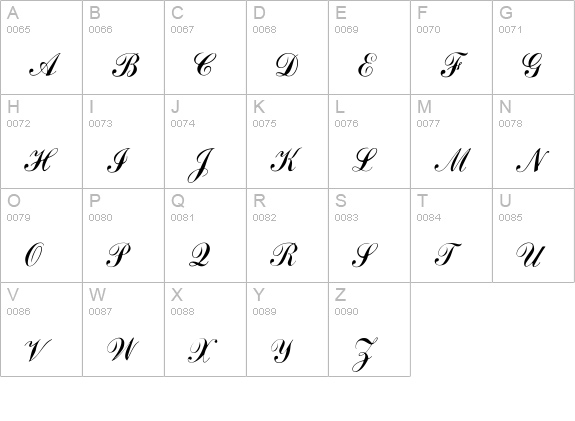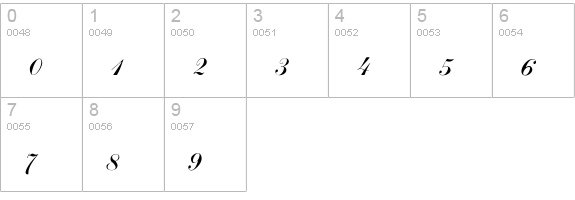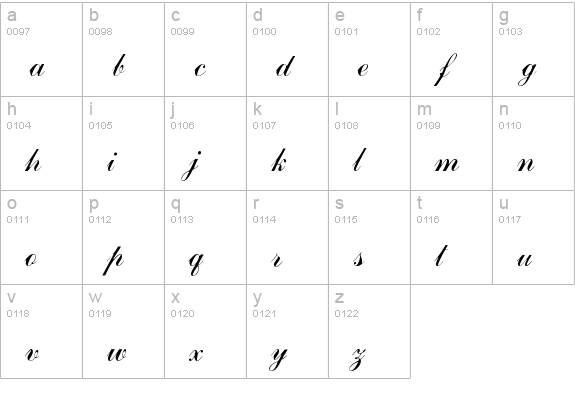
Excellence Font Details
Excellence font is a stunningly elegant typeface that exudes sophistication and style. With its clean lines and modern aesthetic, this font is perfect for creating professional designs that demand attention. The sleek and versatile design of Excellence font makes it suitable for a wide range of projects, from branding to editorial design and beyond. The best part about Excellence font is that it is completely free to download at FontsMarket.com. This means that you can add this beautiful font to your collection without any cost, making it a valuable resource for any designer looking to elevate their work. Whether you're designing a sleek logo, crafting a stylish website, or creating eye-catching social media graphics, Excellence font is sure to impress with its timeless appeal and effortless elegance. Download Excellence font today and take your designs to the next level!